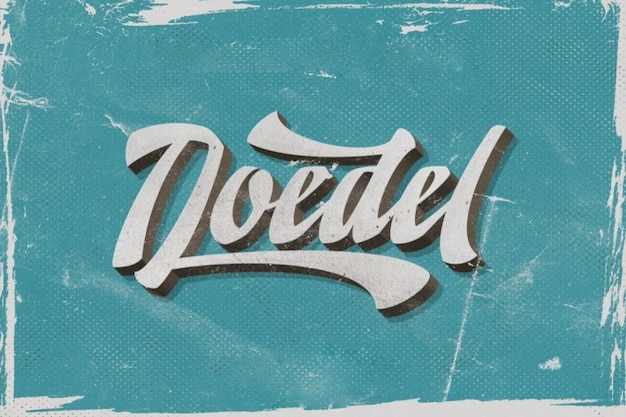
Doedel Font
Doedel font is like a blast from the past, a retro treasure that feels as handwritten as a heartfelt note. Its playful lettering exudes a vintage charm that's simply irresistible. Whether you're designing for a fun project or adding a touch of nostalgia, Doedel adds that retro flair that makes your text stand out with a whimsical, handcrafted touch. It's the font that brings the good old days back to life in style.